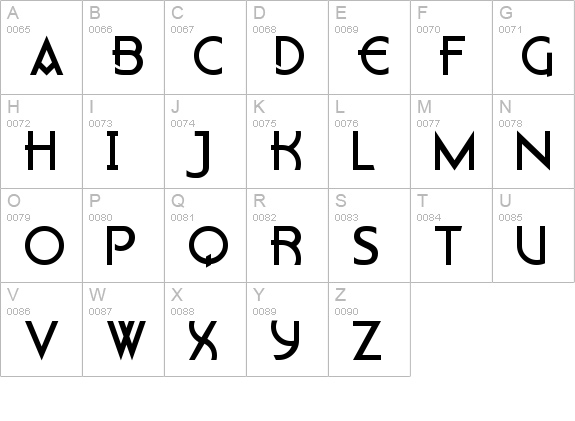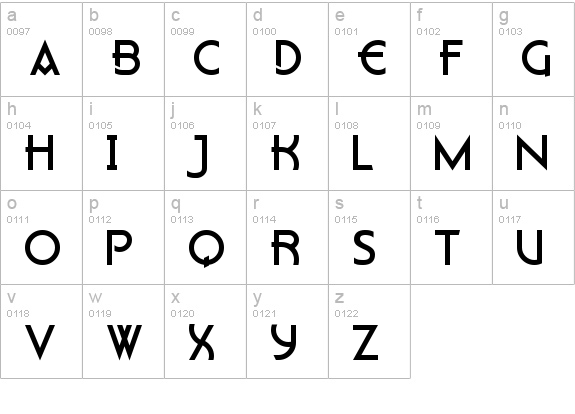
Flatley Font Details
Flatley font is a modern and versatile typeface that combines simplicity with elegance. Its clean lines and balanced proportions make it perfect for a wide range of design projects, from branding to editorial design. The smooth curves and geometric shapes of Flatley font give it a contemporary feel that is both professional and approachable. Best of all, Flatley font is completely free to download at FontsMarket.com. Whether you're a designer looking for a new go-to font or just someone who appreciates good typography, Flatley font is sure to impress with its clean and sophisticated style. Don't miss out on this opportunity to enhance your projects with this exceptional font that is both stylish and cost-free.